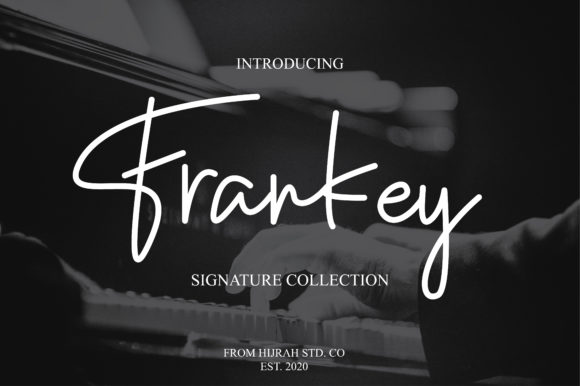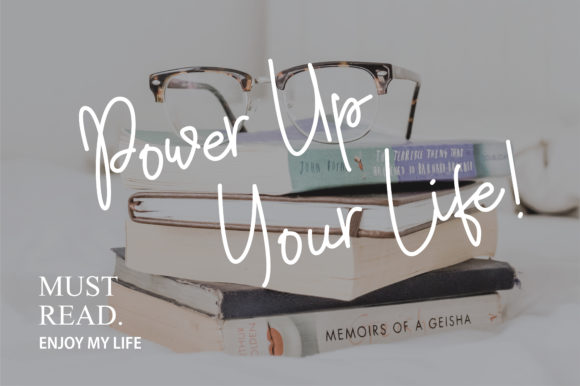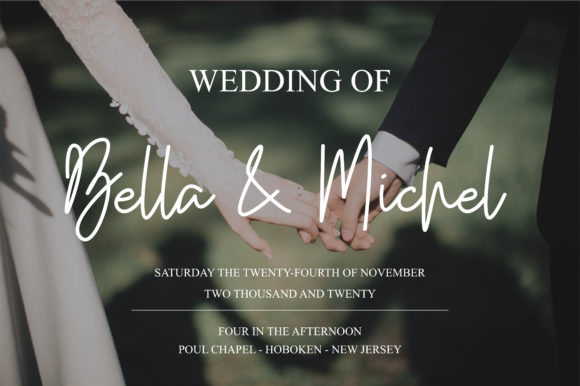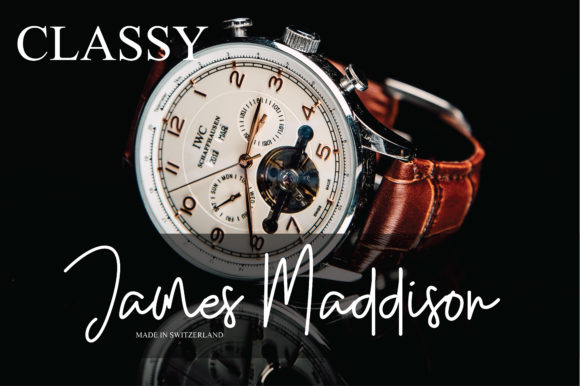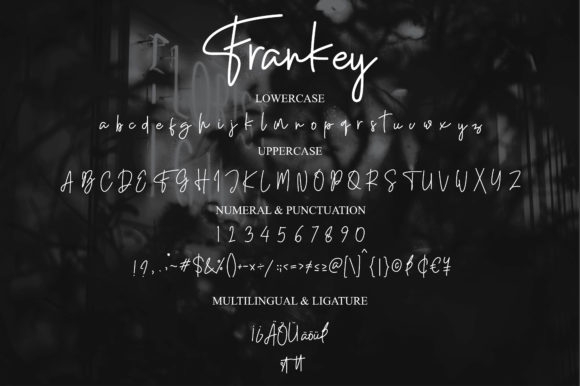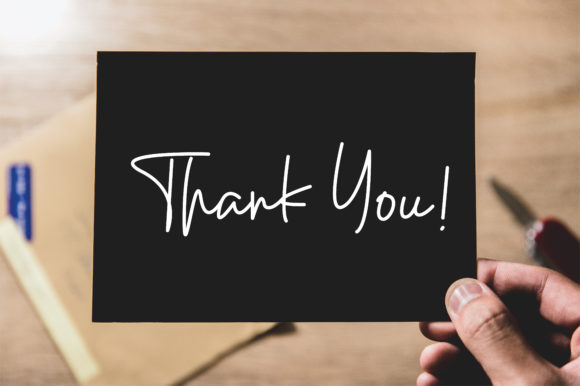
Frankey Font
About Frankey Font
Frankey is a casual, down to earth and readable handwritten font. It is suitable for any branding, product packaging, invitation, quote, t-shirt, label, poster, logo that you wish to develop.